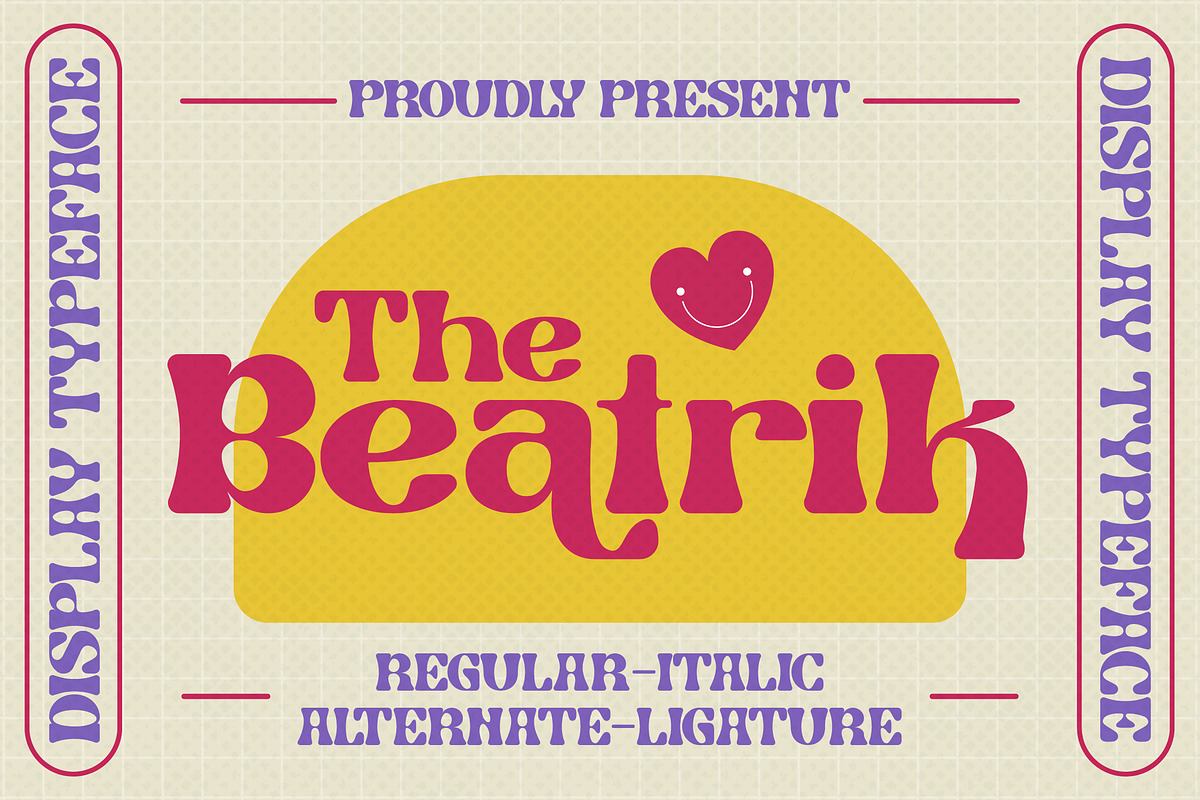
The Beatrik Modern Display Font Free Download
The Beatrik Modern Display Font Free Download is a bold and stylish typeface designed to make a strong visual impact. With its clean lines, unique letterforms, and contemporary flair, The Beatrik is ideal for high-end branding, fashion editorials, logo designs, packaging, and trendy social media graphics.
Its modern display style combines elegance with edge—featuring sharp angles, artistic curves, and striking contrast that draws attention instantly. Perfect for headlines and statement pieces, this font delivers sophistication and creativity in every character.